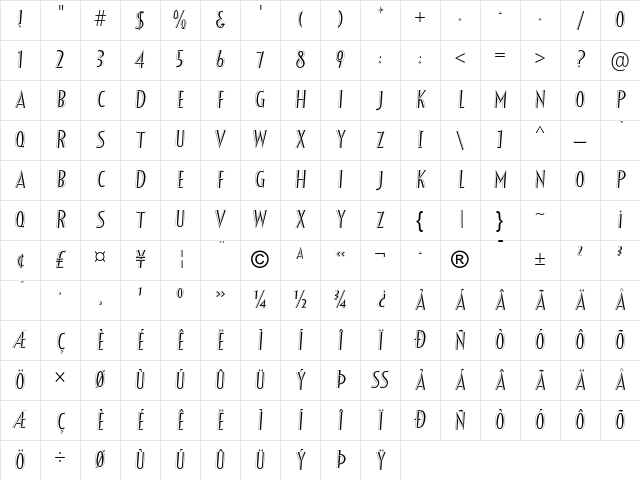
Festival Titling MT Std Regular
Design Context for Festival Titling MT Std
Festival Titling MT Std is a composed and adaptable typeface that performs quietly and consistently across a wide range of design contexts.
Pro Tip: Use Festival Titling MT Std in both headline and body roles to test its range before committing to a single application.